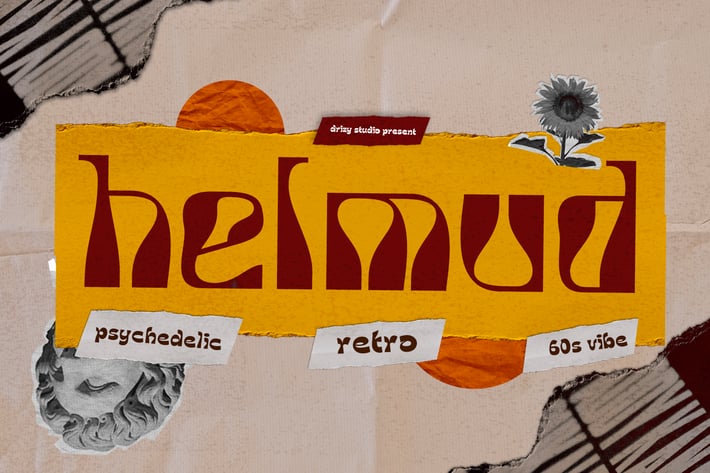
Helmud – Retro Psychedelic Font
Helmud is a Retro Psychedelic Font from Drizy Studio. Offering all the styles you need for your projects.
Helmud features:
Lowercase Only
Punctuation & Numbers
Ligatures